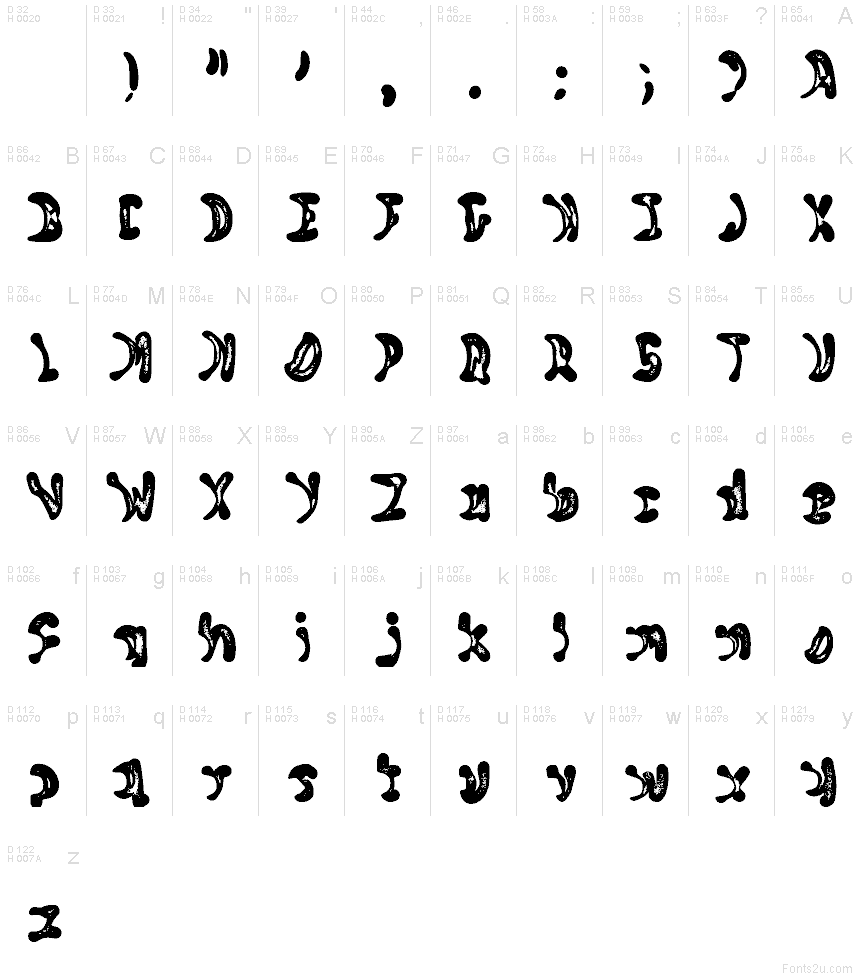
Jollification Regular
Jollification font is a free bold condensed distorted display font. It stands out with blobby, inky strokes that look hand-puddled—thick, wet edges, pebble-like textures, and quirky curves that wobble just enough to feel alive. The condensed build keeps words compact while the heavy weight slams with impact, giving headlines a squishy, high-contrast punch without losing legibility.
Using Jollification, you get anarchic energy that shines on gig posters, Halloween promos, alt zines, indie game titles, sticker packs, and edgy beverage labels. The rhythm feels elastic yet readable, so short phrases land hard and linger. For balance, pair this free font with a clean grotesk for body text, and try a touch of letterspacing at large sizes to let the inky forms breathe.